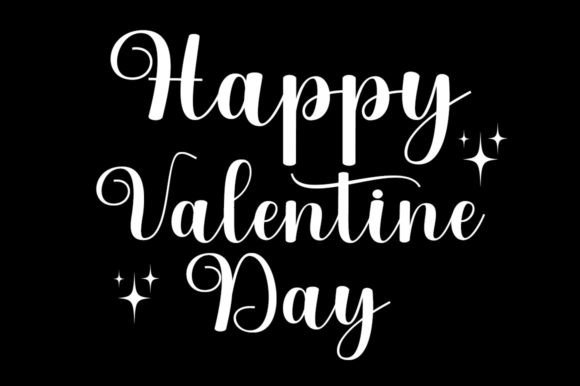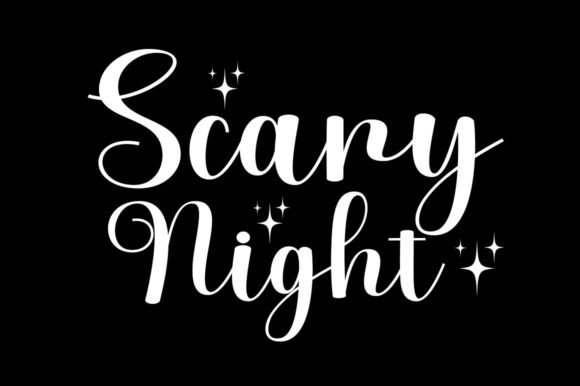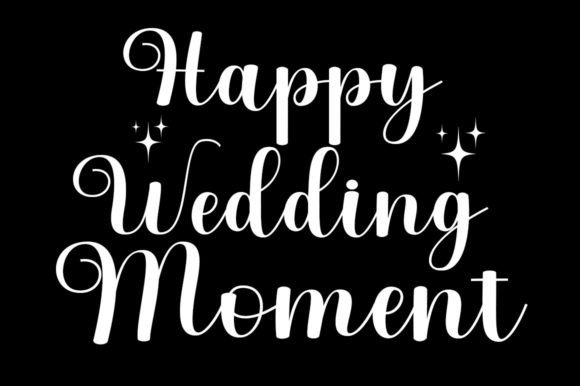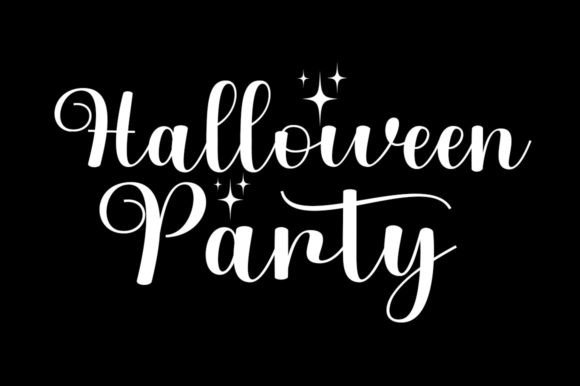
The Perfect Recipe for Elevating Your Designs
As a designer, have you ever been stuck in a creative rut, searching for the perfect font to bring your vision to life? You’re not alone. We’ve all been there, scrolling through endless font options, hoping to find that one special something that makes our design project truly stand out. But what if I told you that you’ve been looking for it in the wrong place? Introducing the Black Chocolate Font, a stunning script font that’s about to become your new best friend.
This elegant font is a stylish homage to classic calligraphy, perfect for elevating any design project to the highest level. Whether you’re working on branding, titles, wedding designs, invitations, signs, logos, labels, or more, the Black Chocolate Font is sure to impress. And the best part? It’s a valuable addition to any designer’s toolkit, offering a level of sophistication and charm that’s hard to find elsewhere.
Black Chocolate Font Key Features
- Font Family: Black Chocolate Font is a unique, high-end font family designed for luxurious and elegant typography.
- Character Set: Includes a wide range of characters, including uppercase and lowercase letters, numbers, and special characters.
- Unique Characteristics: Features a luxurious, chocolate-inspired design with intricate details and subtle texture, perfect for high-end branding, packaging, and advertising.
Designer Review: Black Chocolate Font
Overall, I think the Black Chocolate Font is a solid choice for those looking for a bold and edgy font. ✨ It’s perfect for use in posters, flyers, or any design where you want to grab the viewer’s attention.
Here are some of its strengths:
- ✨ Unique and eye-catching design
- ✨ Highly legible even in small sizes
- ✨ Great for use in a variety of contexts, from informal to formal
However, I do have some reservations about the font:
- ⚠️ Some users may find the boldness of the font overwhelming or too aggressive
- ⚠️ The font’s design may not be suitable for use in complex or fine typography
- ⚠️ The font may not be as versatile as other fonts, limiting its use in certain contexts
Overall, I’d say the Black Chocolate Font is a great choice for designers who want to add a touch of edginess to their designs. However, it may not be the best fit for every project or audience.
The Black Chocolate font is ideal for creating elegant and sophisticated designs. Some common use cases include:
- Luxury brand logos and marketing materials.
- High-end restaurant menus and wine lists.
To get the most out of the Black Chocolate font, experiment with different font sizes, colors, and styles to create a unique and eye-catching design.
Alternatives to Black Chocolate Font for Designers
Playfair Display is an elegant, high-end serif font that can add a touch of sophistication to any design. It’s ideal for use in high-end branding, luxury packaging, and formal invitations.
Compared to Black Chocolate Font, Playfair Display is more refined and less bold. It’s a better choice when you need a font that exudes luxury and sophistication, but still conveys a sense of elegance and refinement.
Great Vibes is a modern script font that’s perfect for creating a fun, energetic vibe in your designs. It’s great for use in social media graphics, event invitations, and promotional materials.
Compared to Black Chocolate Font, Great Vibes is more casual and playful. It’s a better choice when you need a font that’s fun, energetic, and attention-grabbing.
Pacifico is a beautiful, elegant script font that’s perfect for use in designs that need a touch of sophistication and elegance. It’s great for use in branding, packaging, and marketing materials.
Compared to Black Chocolate Font, Pacifico is more refined and less bold. It’s a better choice when you need a font that exudes elegance and sophistication, but still conveys a sense of warmth and approachability.